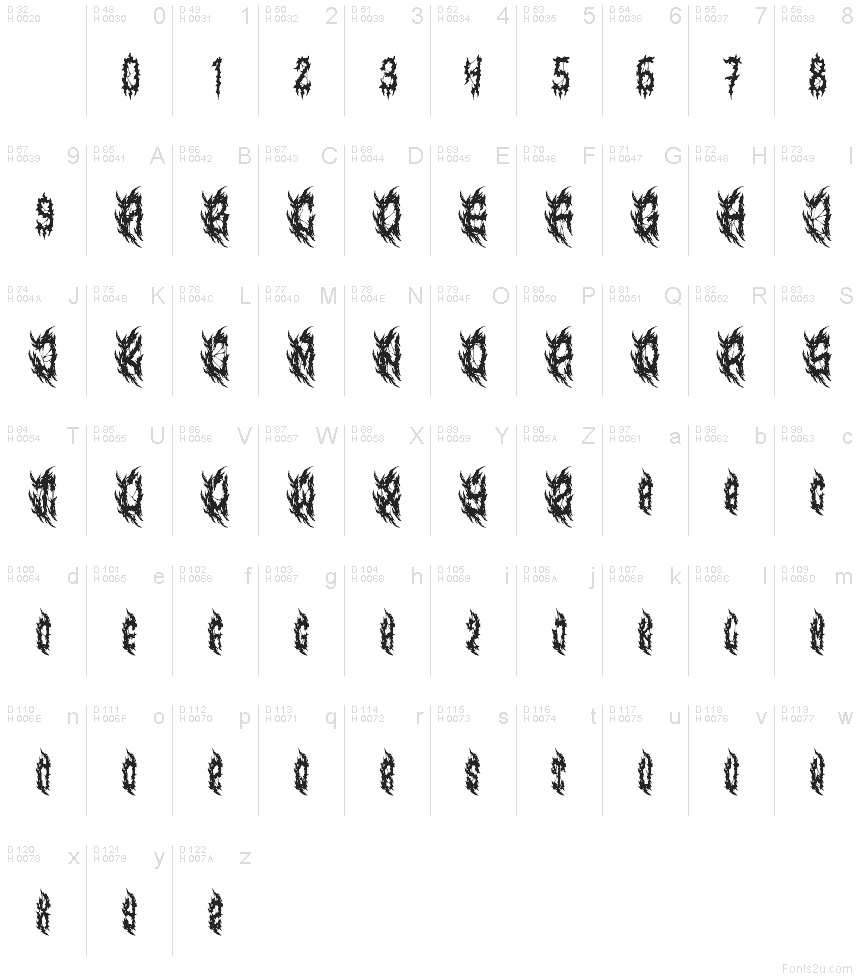
Orthros font by Muhammad Novianto is a modern condensed Gothic display font with dark aggressive letter design. It has an intense jagged look that is expressive, rebellious, and chaotic. Hard shapes and sharp corners make up the font characters that are more noticeable in large tall text sizes.